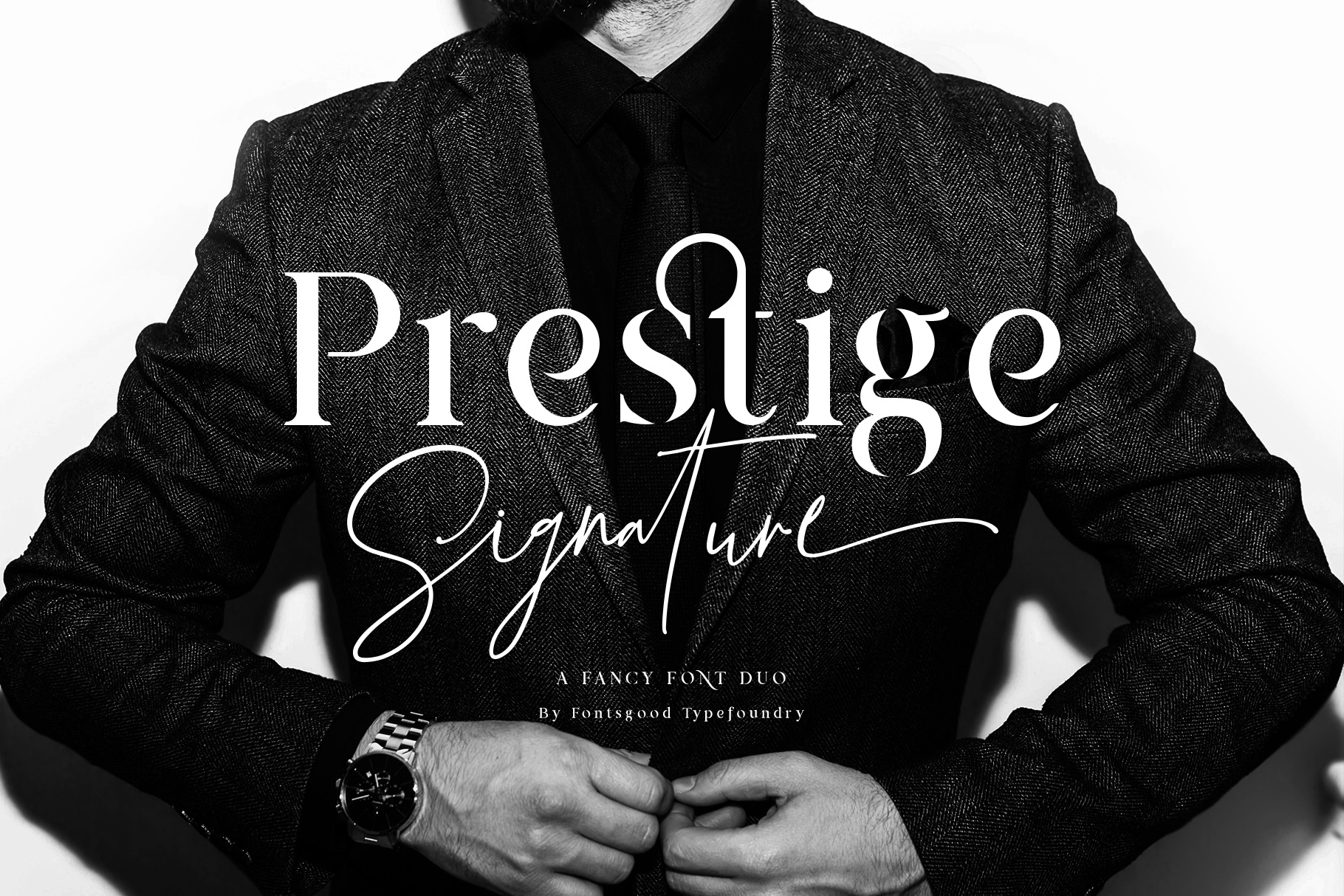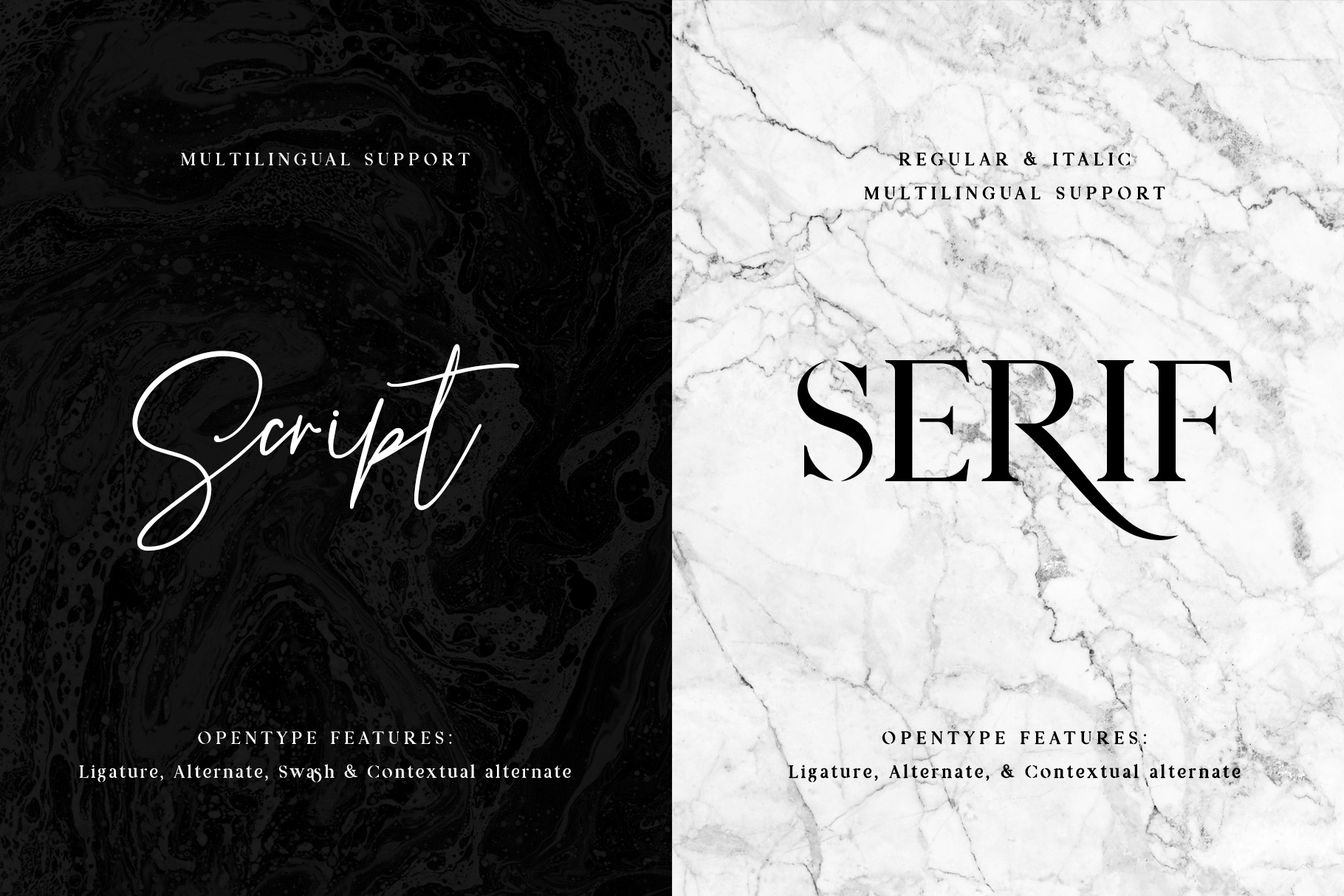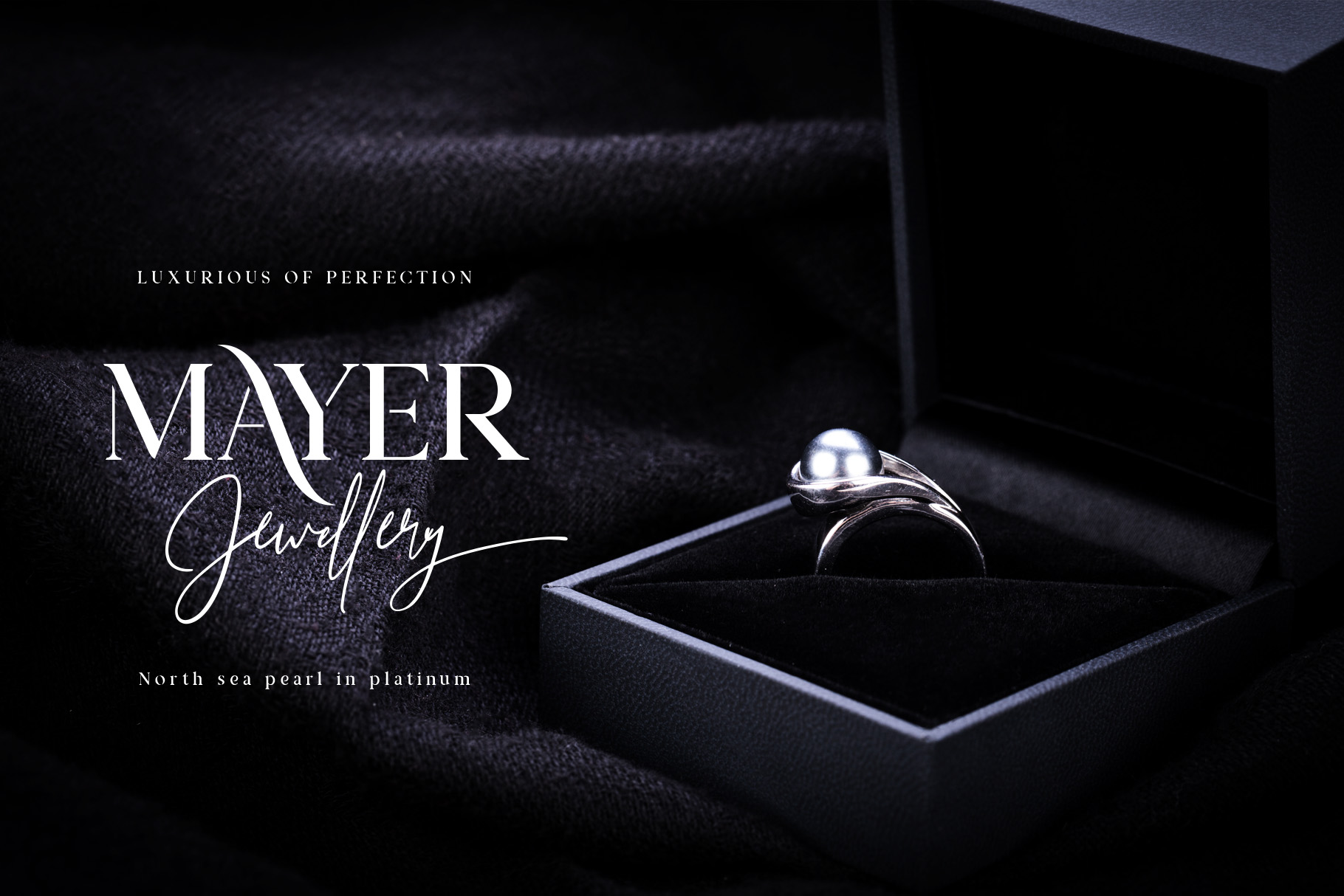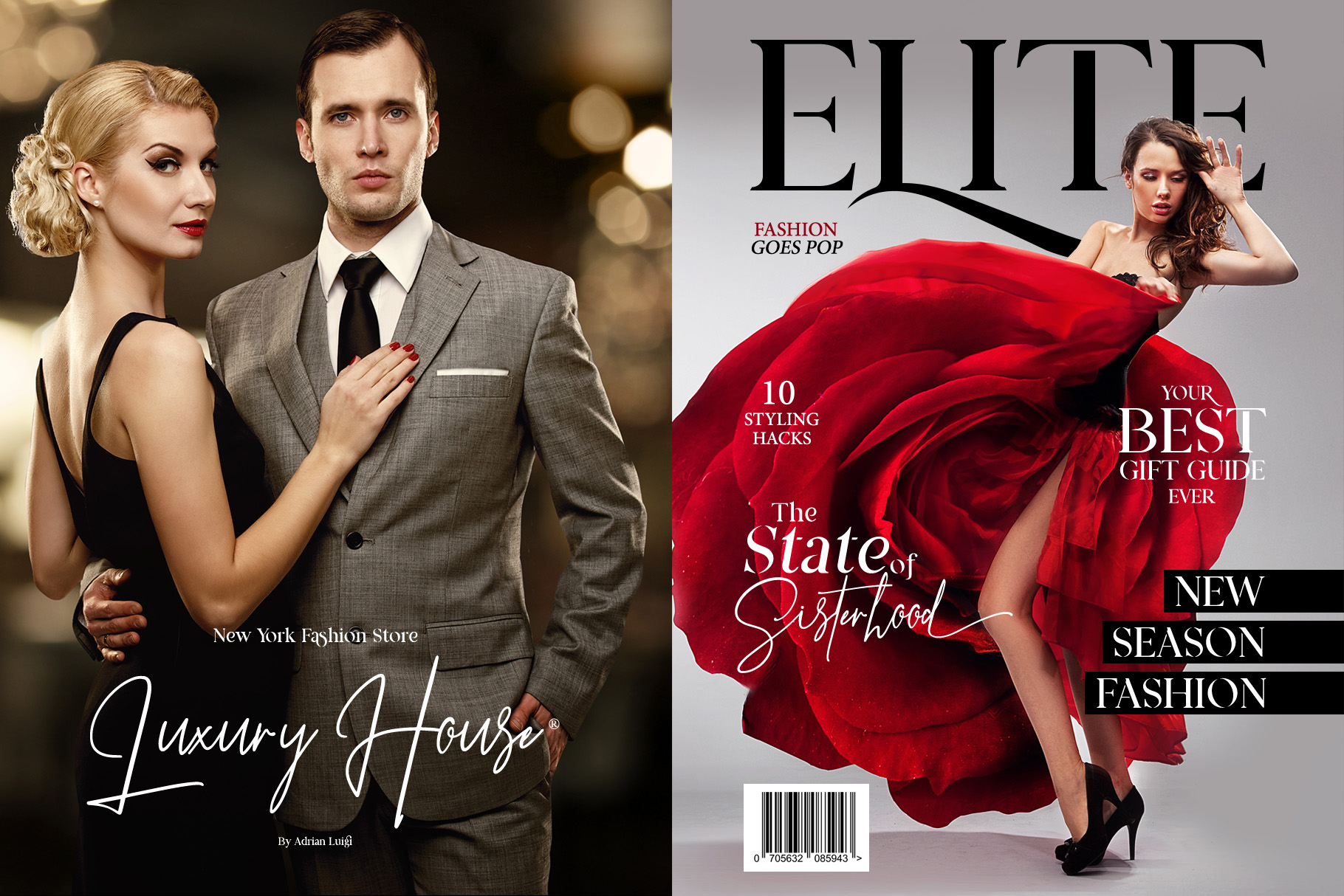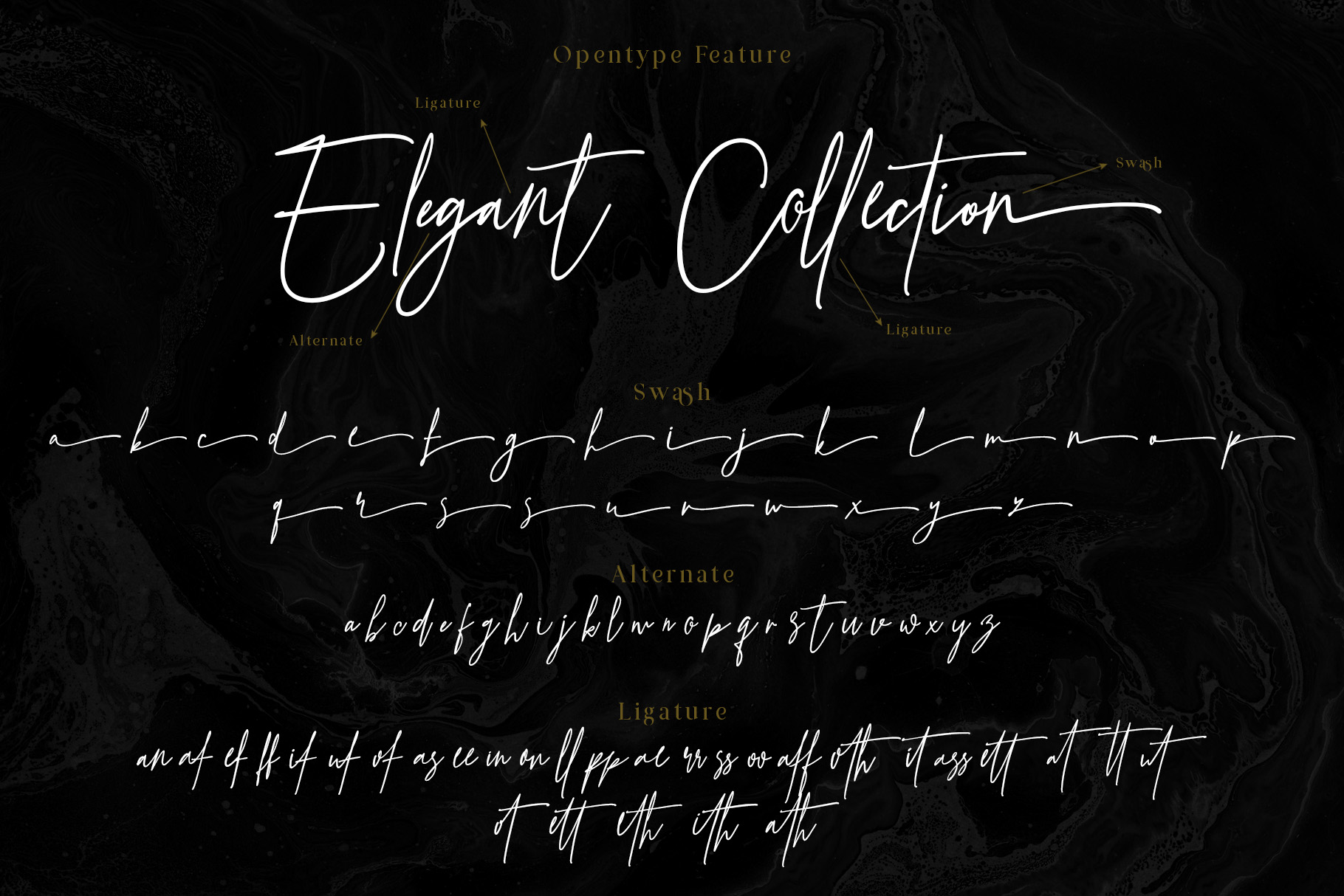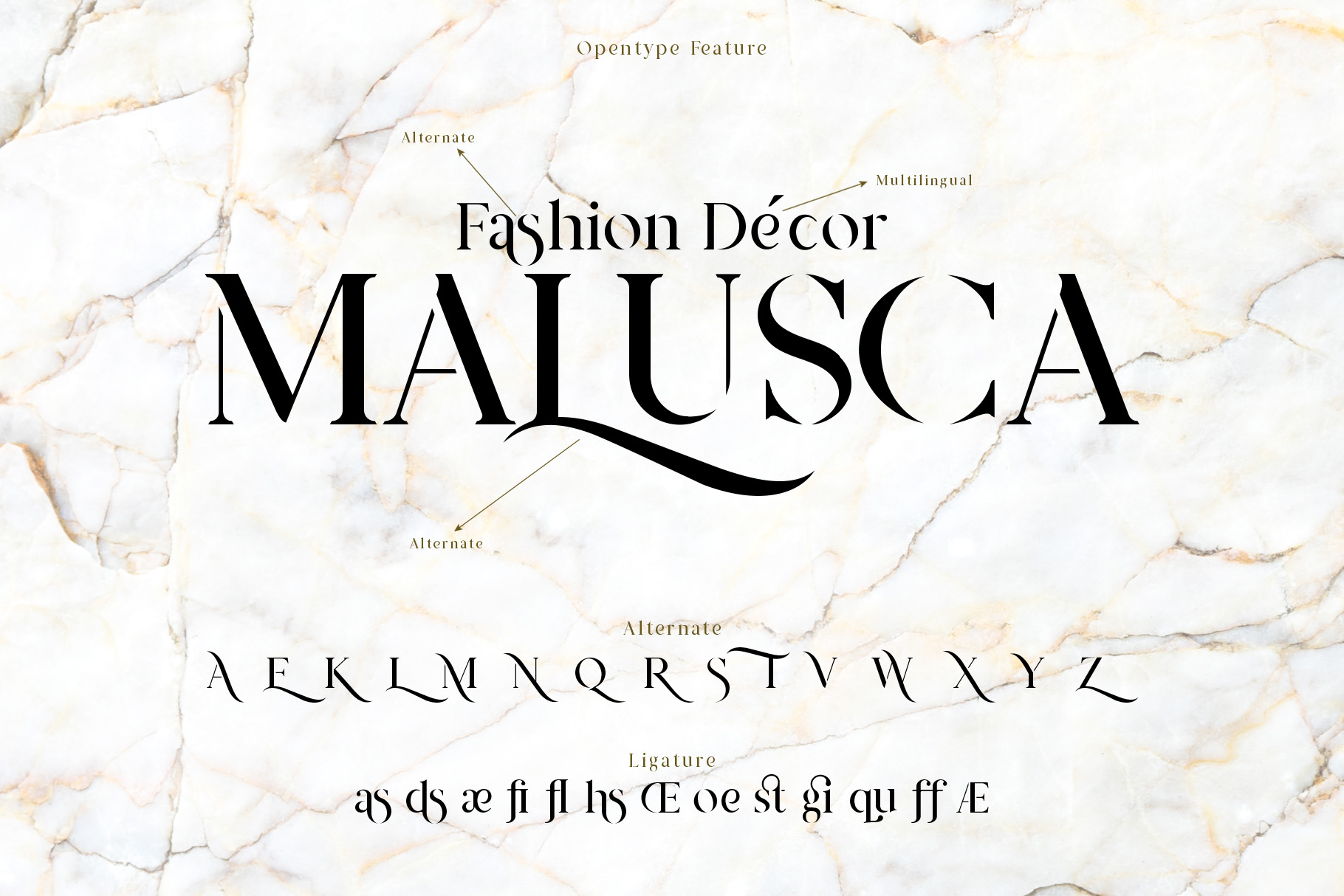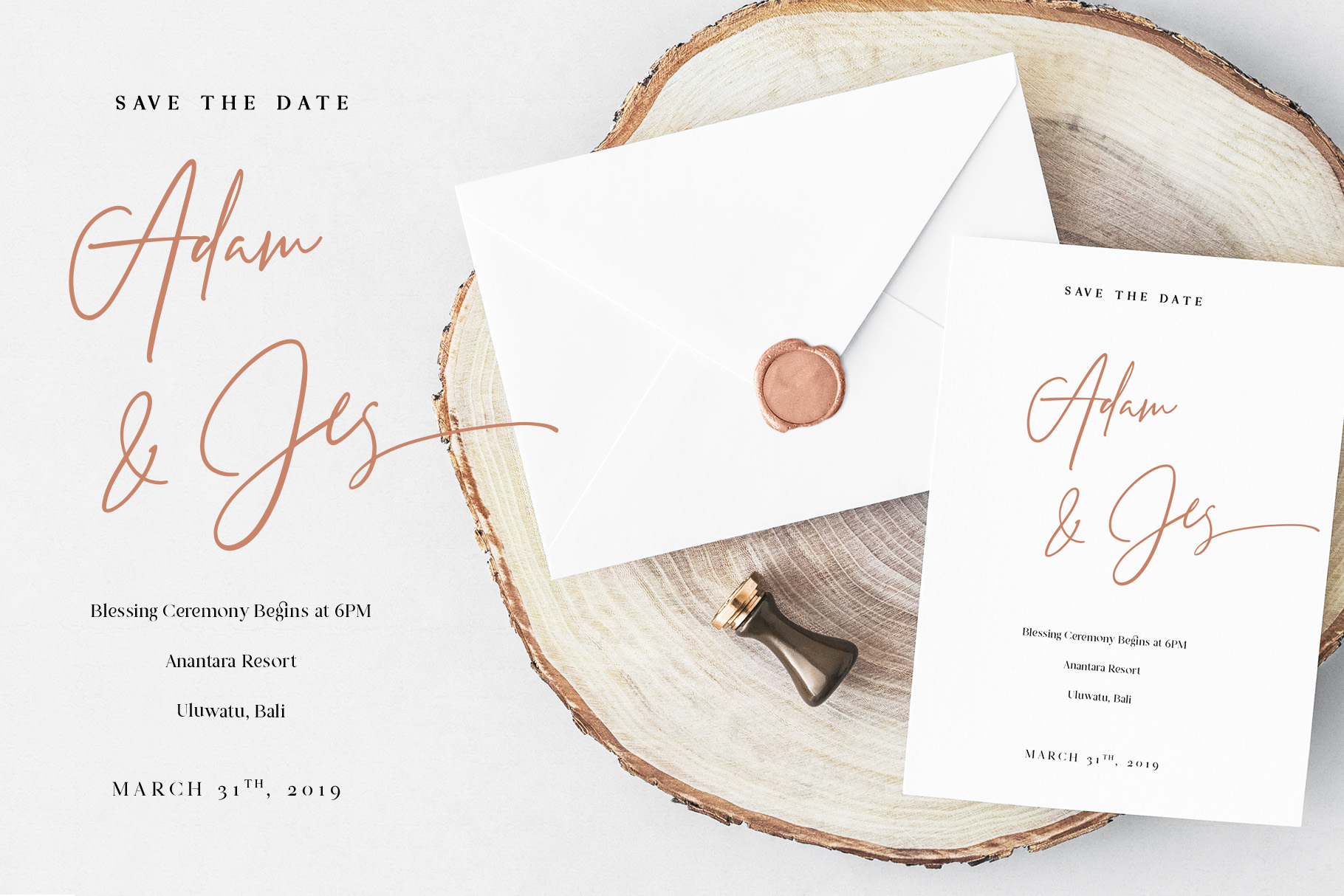
Prestige Font
About Prestige Font
Prestige is a fancy serif and script font combo, ideal for a wide range of uses. This font is a great way to give your designs a ton of elegance with incredibly stylish and complementary fonts.